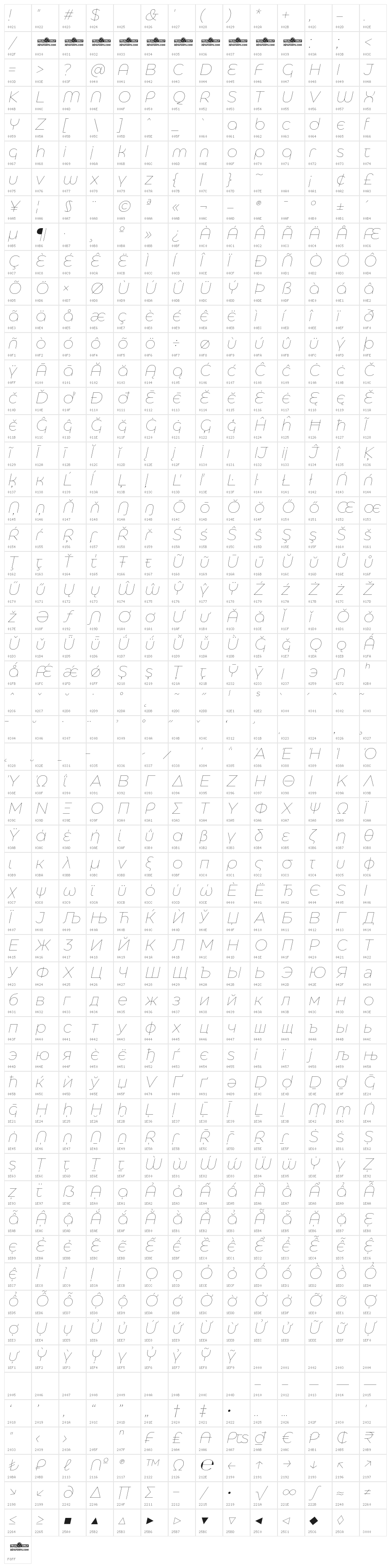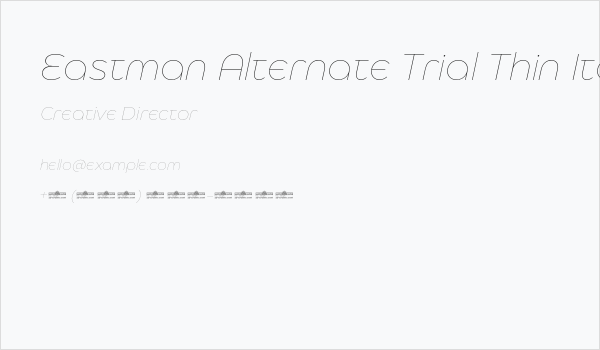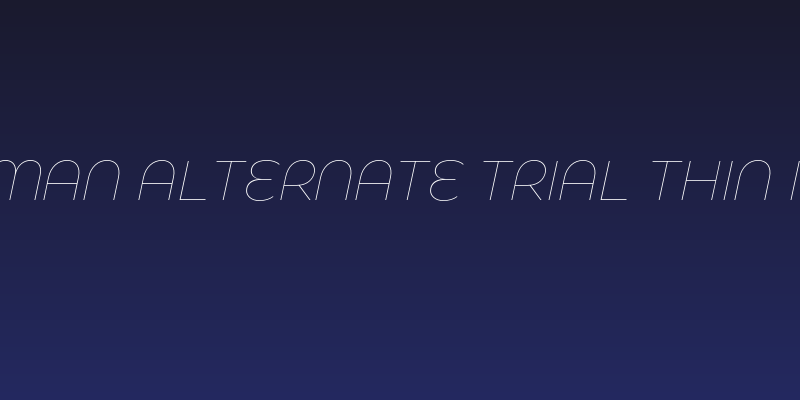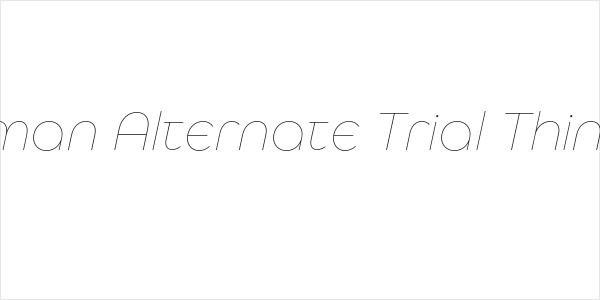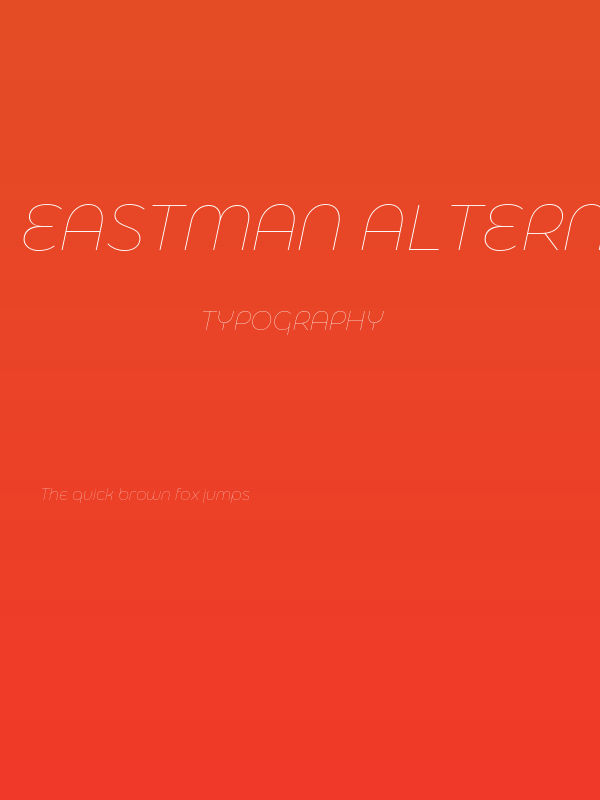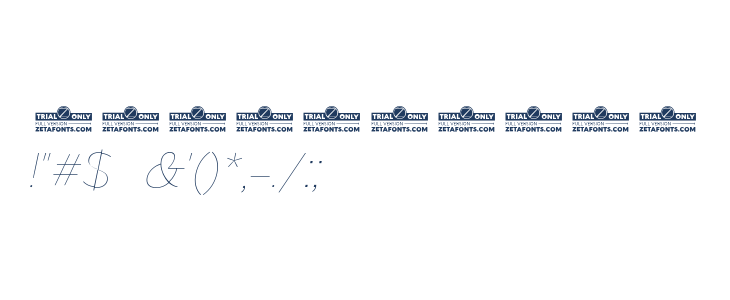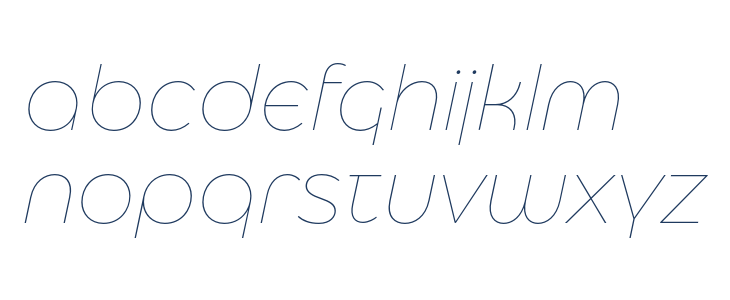
Eastman Alternate Trial Thin Italic Font
Eastman Alternate Trial Thin Italic Description
This font features a sleek, modern design with a thin, italicized style. The characters are elegantly elongated, giving a sense of movement and fluidity. The uppercase and lowercase letters maintain a consistent slant, enhancing the italic effect. The numerals and special characters are crafted with the same attention to detail, ensuring uniformity across the font. The overall appearance is minimalist, with clean lines and a contemporary aesthetic that is both stylish and functional.
| Proposed Projects | Ideal for fashion magazines, modern branding, elegant invitations, and minimalist website headers. |